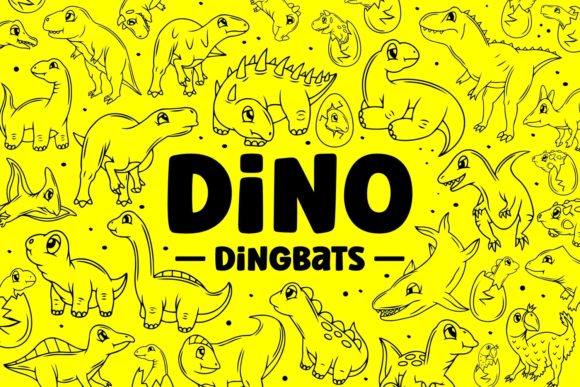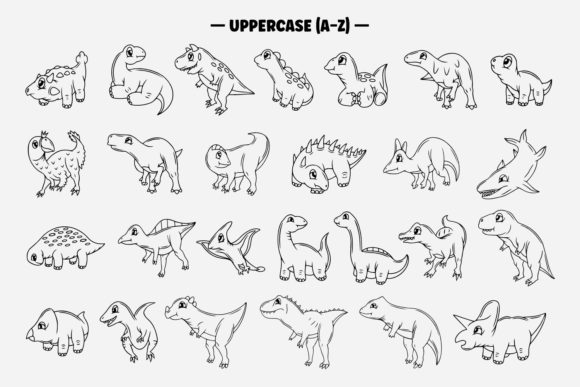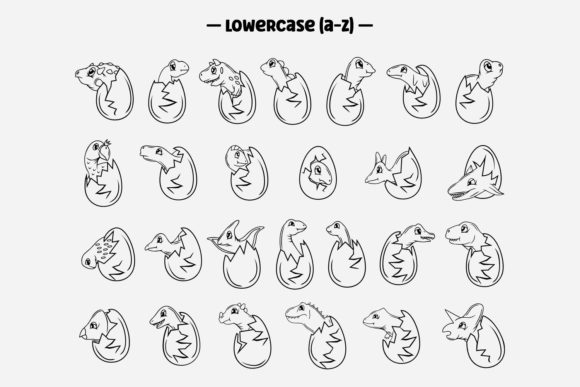
Dino Dingbats Font
About Dino Dingbats Font
Dino Dingbats is a playful and whimsical dingbats font that brings the prehistoric world of dinosaurs to life. With its charming collection of cartoon dinosaur icons, this typeface is specifically designed to add a fun and adventurous touch to various projects targeting children.
The Dino Dingbats font is an excellent choice for creating captivating designs for kids’ t-shirts, cards, posters, and crafts. Its colorful and friendly dinosaur characters will instantly capture the attention and imagination of young ones, making it an ideal font for children’s products and materials.
This font is not only visually appealing but also educational. The range of dinosaur icons featured in Dino Dingbats allows for interactive learning experiences. You can use them to create engaging flashcards, worksheets, and educational materials that help children familiarize themselves with different dinosaur species and their characteristics.
Crafting enthusiasts can also utilize Dino Dingbats to add a touch of whimsy to their projects. Whether you’re creating scrapbooks, personalized stationery, or decorations for kids’ parties, the playful dinosaur icons will bring joy and excitement to every design.
Teachers and educators will find Dino Dingbats to be a valuable resource in the classroom. The font can be used to create visually appealing materials for lessons, presentations, and classroom displays. It can also be incorporated into educational games, puzzles, and quizzes to make learning about dinosaurs a fun and memorable experience.
Using the Dino Dingbats font is as simple as typing the corresponding letters or characters to access the delightful dinosaur icons. The font’s intuitive design makes it easy to incorporate the icons into your designs seamlessly.
In summary, Dino Dingbats is a delightful typeface that unleashes the playful world of dinosaurs. With its charming collection of cartoon dinosaur icons, it is perfect for kids’ t-shirts, cards, crafts, learning materials, and beyond. Spark the curiosity and imagination of children with this whimsical font and let the adventures of dinosaurs come to life in your designs.